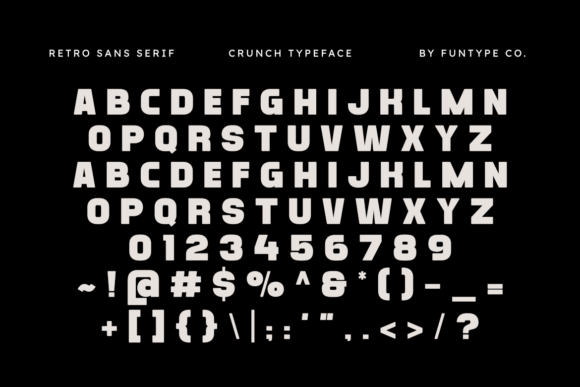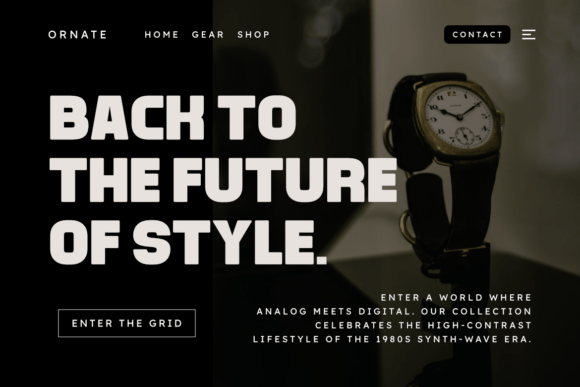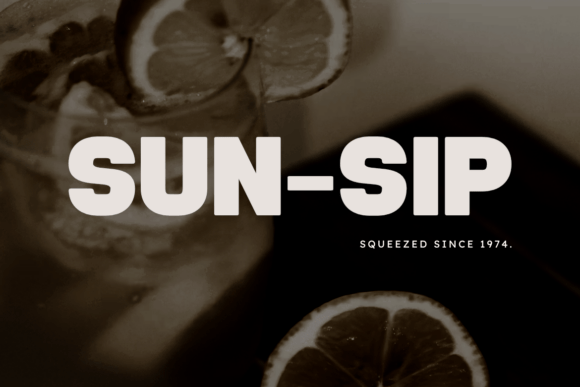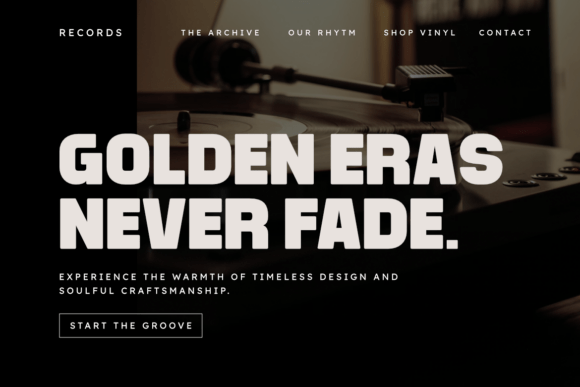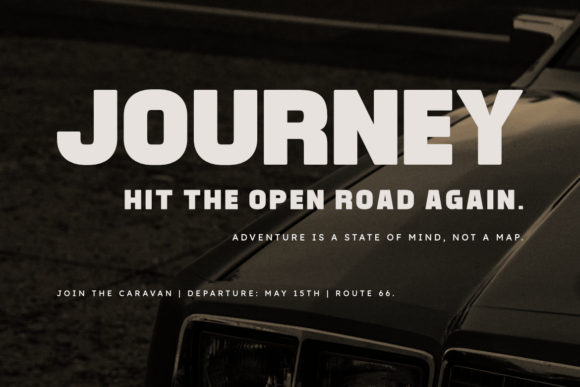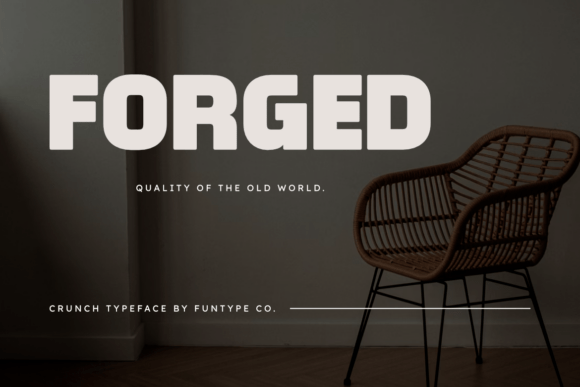
Introducing Crunch: The Ultimate Retro Sans Serif Font for Impactful Designs
In the world of typography, a font can make or break a design. It’s the foundation upon which the entire visual identity is built. For designers and crafters looking to make a statement, Crunch is the perfect solution. This striking retro sans serif font is designed to exude strength and precision, making it the ultimate choice for impactful headlines, polished vintage brand identities, chic fashion logos, and bold digital posters.
The Power of Crunch: A Font that Packs a Punch
Crunch’s robust structure and clean, weighty strokes are what set it apart from other fonts. Its sleek, balanced design imbues any creative project with an impactful, professional touch that somehow tenderly whispers of nostalgia. Whether you’re looking to create a bold statement or a sophisticated brand identity, Crunch has got you covered.
One of the key features of Crunch is its versatility. This font can be used across a wide range of design platforms, from print to digital. Its clean lines and precise strokes make it perfect for headlines, titles, and short phrases, while its bold structure ensures that it stands out in any design.
What Makes Crunch So Special?
So, what makes Crunch so special? Here are just a few reasons why designers and crafters are falling in love with this incredible font:
- Retro sans serif design: Crunch’s retro sans serif design is both nostalgic and modern, making it perfect for designers looking to create a unique visual identity.
- Robust structure: Crunch’s robust structure and clean, weighty strokes make it perfect for impactful headlines and bold digital posters.
- Versatile: Crunch can be used across a wide range of design platforms, from print to digital.
- Professional touch: Crunch’s sleek, balanced design imbues any creative project with an impactful, professional touch.
How to Use Crunch in Your Designs
- Headlines and titles: Use Crunch to create bold, impactful headlines and titles that grab attention.
- Vintage brand identities: Crunch’s retro sans serif design makes it perfect for creating polished vintage brand identities.
- Fashion logos: Crunch’s sleek, balanced design makes it perfect for creating chic fashion logos.
- Digital posters: Use Crunch to create bold, eye-catching digital posters that stand out.
Tips and Tricks for Getting the Most Out of Crunch
Here are just a few tips and tricks for getting the most out of Crunch:
- Experiment with different sizes: Crunch looks great in large and small sizes, so don’t be afraid to experiment.
- Pair with other fonts: Crunch pairs well with other sans serif fonts, so try pairing it with a script font for added contrast.
- Use it sparingly: While Crunch is a bold font, it can be overwhelming if used too much. Use it sparingly to create impact.
In conclusion, Crunch is the ultimate retro sans serif font for designers and crafters looking to make a statement. Its robust structure, clean lines, and precise strokes make it perfect for impactful headlines, polished vintage brand identities, chic fashion logos, and bold digital posters. With its sleek, balanced design and versatile nature, Crunch is the perfect addition to any design project. So why wait? Download Crunch today and take your designs to the next level.